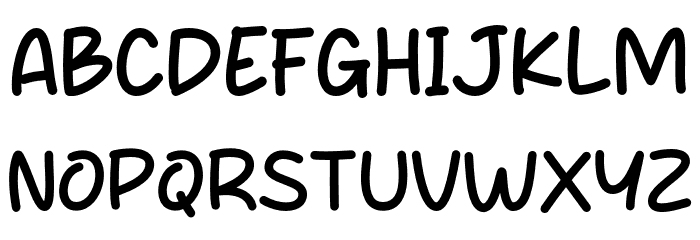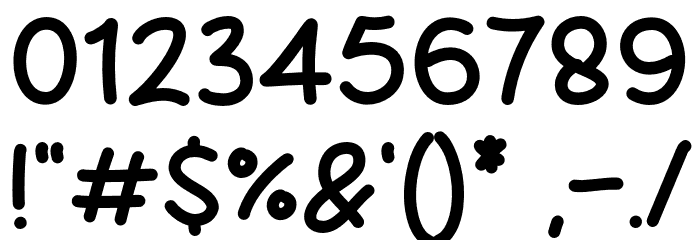
Squeal Oval Font
This font features a playful and rounded style, characterized by its smooth curves and consistent stroke width. The letters are bold and have a hand-drawn appearance, giving them a friendly and approachable feel. The uppercase and lowercase letters maintain a uniform height, contributing to a cohesive look. The numerals and special characters are designed to match the overall aesthetic, with rounded edges and a slightly whimsical touch. This font is versatile, suitable for projects that require a casual and inviting tone.
A playful, rounded font with a hand-drawn, friendly appearance.
- Font: Squeal Oval
- Proposed Projects: Ideal for children's books, playful branding, casual invitations, and social media graphics.
- Category: Handwritten
- Overall Style: Playful
- Use Case: Headlines, Logos, Informal Text